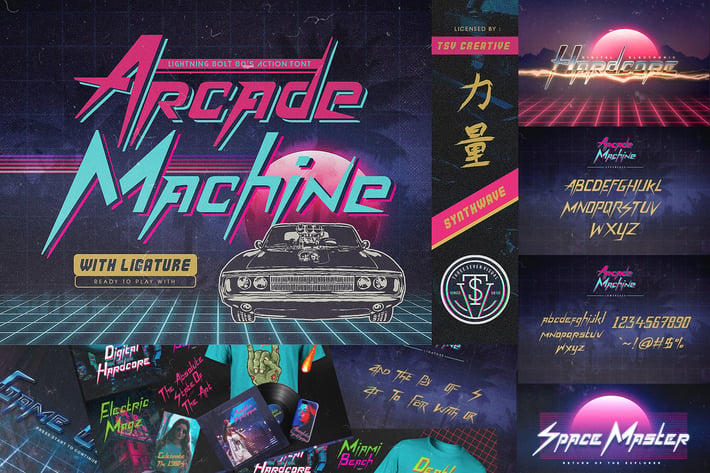
Arcade Machine 80's Retro Font
As a kid born in the 80's. Knight riders, miami vice, arcade gaming machines, and the generation of video game console are very memorable thing! That's what inspired me to make this font, so..
Introducing!
Our new font named Arcade Machine. Arcade machine is a font that we make for "nostalgic" with the glory era of the 80's action movie, video games then combined with the feel of synthwave.
This font comes with uppercase, lowercase and ligature you can play with.
It's Arcade Machine a Lightning Bolt 80's Action Font!